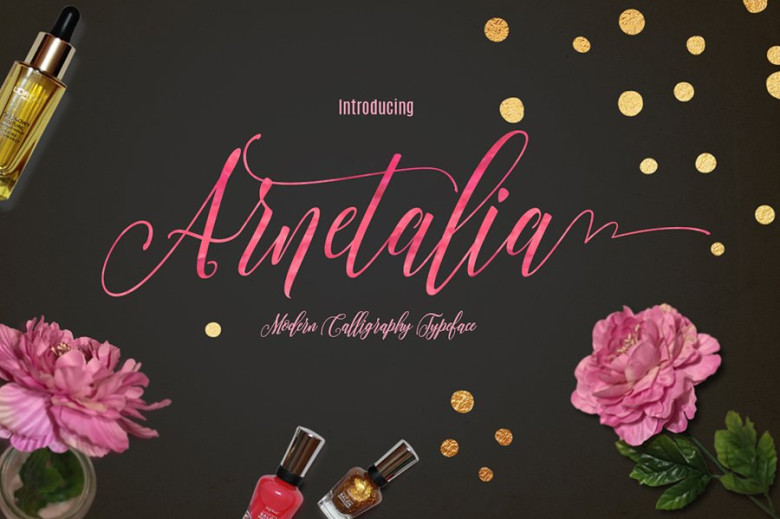
Arnetalia Font
Arnetalia is a beautiful modern calligraphy typeface with natural hand-writing styles and irregularly bouncy characters. This script is great to give some personal touches in any designs you’re currently working on; wedding invitations, greeting cards, scrapbooks, etc.